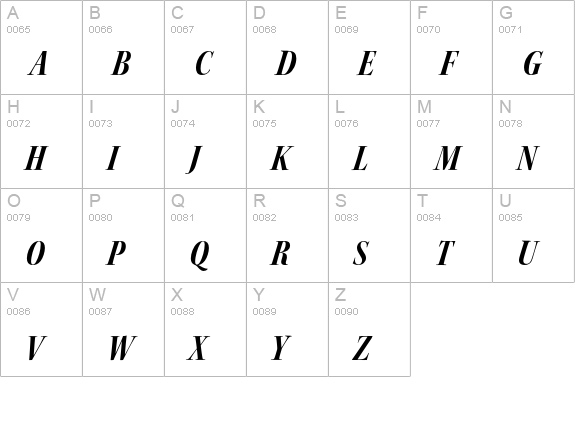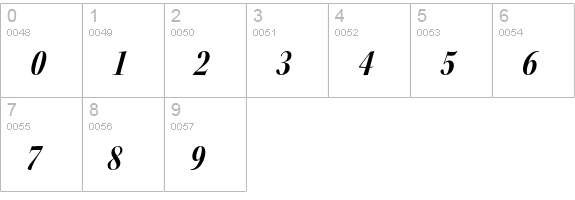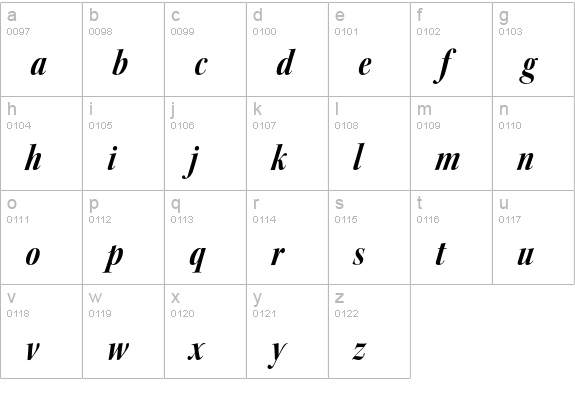
Kepler Std Bold Condensed Italic Display Font Details
Kepler Std Bold Condensed Italic Display is a strong, high-contrast, condensed-width, italic variant in the Kepler typeface family \xE2\x80\x94 well suited to headlines, attention-grabbing titles, and strong calls-to-action.
Kepler Std Bold Condensed Italic Display font is a stunning and powerful typeface that exudes confidence and sophistication. With its bold strokes and condensed letterforms, this font demands attention and makes a bold statement in any design project. The italicized slant adds a touch of elegance and dynamism to the overall aesthetic, making it the perfect choice for headlines, titles, and display purposes. Whether used in print or digital media, Kepler Std Bold Condensed Italic Display font delivers a visually striking impact that is sure to captivate and engage the audience. This font offers a unique blend of readability and visual appeal, making it suitable for a wide range of design applications. From branding and advertising to editorial layouts and packaging design, Kepler Std Bold Condensed Italic Display font elevates the visual experience and brings a sense of professionalism to any project. One of the best things about Kepler Std Bold Condensed Italic Display font is that it is available for free download at FontsMarket.com. This means that designers and creatives can easily access and utilize this exceptional typeface without any financial constraints. Whether you are a professional designer looking to enhance your typography arsenal or a hobbyist exploring new fonts for personal projects, Kepler Std Bold Condensed Italic Display font is a must-have. Its versatility, style, and the fact that it can be freely downloaded from FontsMarket.com make it an invaluable resource for anyone seeking to elevate their design work to the next level.